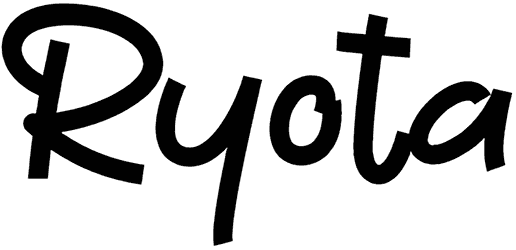
Ryota Font
Beyond doubt, this devilish script font, which is called Ryota, will be one of your notable items to adorn your designs. With a natural pen lettering style, this elegant font is suitable for numerous purposes.
As a sticker font, this masterwork would be a lovely set for many designs, such as postcards, quotes, cosmetic brands, invitations, magazines, and the like. Now, if you’re chomping at the bit to hold it, you’re in good company!